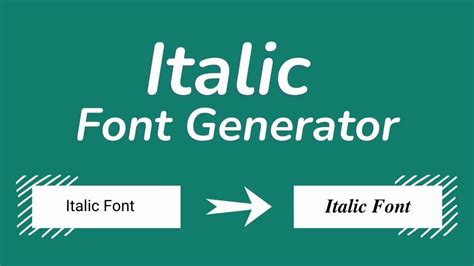
Unleash Your Creativity: The Ultimate Bold Italic Font Generator Guide
Hey guys! Are you looking to spice up your text and make it pop? Do you want to know how to create eye-catching headings, social media posts, or even just add a little flair to your everyday messages? Then you’re in the right place! We’re diving deep into the world of bold italic font generators , exploring how these tools can transform your text and make it stand out from the crowd. Whether you’re a seasoned designer or just someone who loves a little visual pizzazz, this guide will provide you with everything you need to know about these awesome generators and how to use them effectively. Get ready to level up your text game and make your words sing!
Bold italic font generators are essentially online tools that convert your regular text into a variety of stylized fonts, including bold italic combinations. They work by using Unicode characters, which are special symbols and glyphs that allow for different text styles to be displayed. This means you can create text that looks bold , italic , or even a combination of both, without needing any fancy software or design skills. The best part? Most of these generators are completely free and super easy to use! So, if you’re ready to add some visual flair to your text, read on to discover the power of bold italic font generators . They are really useful for creating headings that grab attention, crafting unique social media posts, designing visually appealing graphics, and adding a touch of personality to your messages. With just a few clicks, you can transform plain text into something truly special. Plus, they’re super easy to use, making them accessible to everyone, regardless of their design experience. So, buckle up, because we’re about to explore the exciting world of text customization.
What Exactly is a Bold Italic Font Generator?
So, what exactly is a bold italic font generator , you ask? Well, it’s a simple, yet powerful, online tool that takes your regular text and transforms it into visually striking bold italic versions. Think of it as a magical text transformer that does all the hard work for you! These generators utilize Unicode characters – a vast set of symbols and glyphs – to create different font styles that aren’t typically available in standard font selections. These generators work by taking your input text and converting it into a format that displays as bold , italic , or both. They don’t actually change the underlying font on your device, but instead, they create the illusion of a bold italic font by using these special characters. This means the text will appear in the chosen style, but it’s still technically just text, not a different font file. This is what makes them so versatile. Because the output is in the form of Unicode characters, you can copy and paste the generated text and use it in various applications, like social media platforms, messaging apps, and even some word processors. It’s a quick and easy way to add visual appeal to your text without installing any new fonts. You don’t need to be a design expert or have any special software; it’s all done online, and it’s free. These generators are incredibly useful for adding emphasis, creating eye-catching headings, and making your text stand out in a sea of plain text. They’re perfect for social media, where grabbing attention is key. But they are also helpful for creative writing, designing presentations, or even just adding a touch of personality to your emails. You can instantly create text that is visually more appealing and conveys your message more effectively. So, are you ready to learn how to use these amazing tools and elevate your text game?
How Do Bold Italic Font Generators Work?
Alright, let’s get down to the nitty-gritty and see how these bold italic font generators actually work . The magic happens behind the scenes, using a combination of technology and clever character mapping. When you type or paste your text into the generator, it doesn’t just apply a standard bold italic style like you’d find in a word processor. Instead, it uses a clever workaround. It leverages the power of Unicode characters. Unicode is an international standard that assigns a unique number to every character, symbol, and glyph. This includes a wide variety of visually similar characters that can be used to mimic different font styles. The generator analyzes your input text and replaces each character with its corresponding Unicode counterpart. These counterparts are designed to look bold , italic , or a combination of both. So, even though it may look like a different font, it’s actually a collection of these special Unicode characters. This process is automatic and happens almost instantly. Once the conversion is complete, the generator displays the transformed text in the desired style. You can then copy and paste the styled text into your desired application or platform. Because the generator uses Unicode characters, the styled text will render correctly across different devices and platforms. This ensures your visually enhanced text looks the way you intended, regardless of where it’s viewed. This method provides the flexibility to create bold italic text without needing the actual font installed on your system. It’s a super-convenient and efficient way to add visual flair to your text.
Step-by-Step Guide: Using a Bold Italic Font Generator
Okay, guys, let’s get practical! Here’s a simple step-by-step guide to help you use a bold italic font generator and jazz up your text in no time. First, you’ll need to find a bold italic font generator online. A quick search should bring up a ton of free options. Once you’ve chosen your generator, head over to the website. Most generators have a simple interface, with a text box where you can input your text. It’s usually labeled as